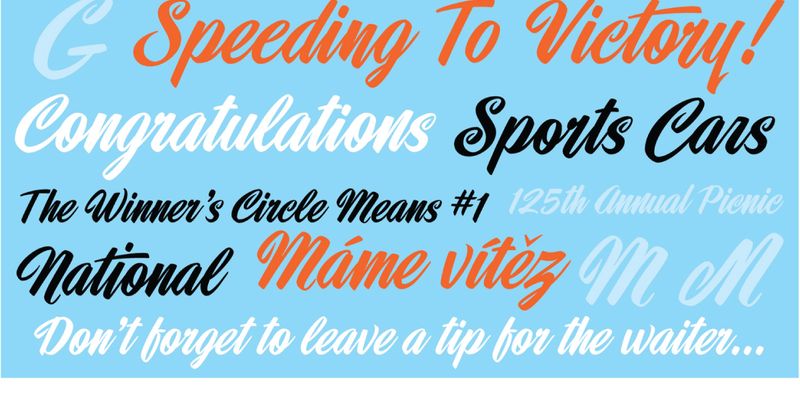
Dragster Script (formerly known as Raceway) is another script font inspired by the work of sign-painter, Mike Stevens and one of my personal favorites. To add typographic variation and a more hand-lettered feel, Dragster Script contains three versions of each letter, plus a few additional alternates and ligatures to round out the glyph set. Full of energy and fun, this font is perfect for a variety of designs! Mixing and matching these variations gives your design a more organic feel. I enhanced the bouncy mood of this typeface by slightly modulating the baseline. Dragster Script is a great font with terrific versatility.